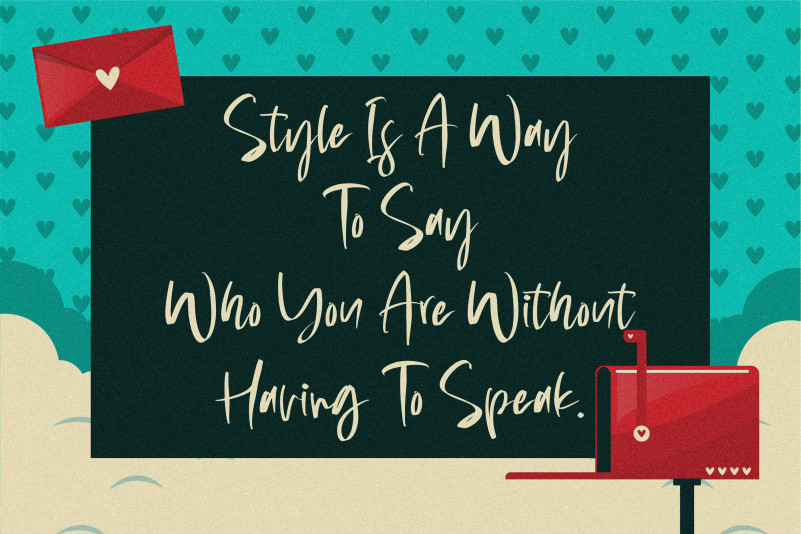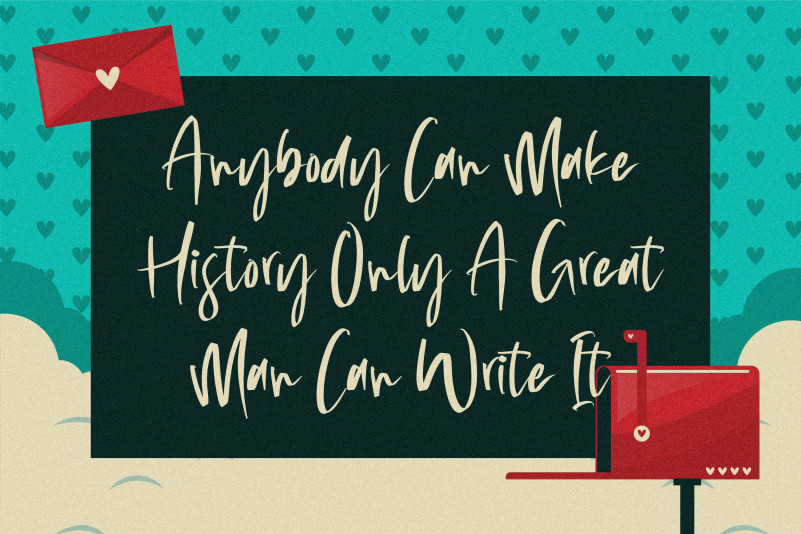
Handwritten Dreams Font
Handwritten Dreams Brush Font
This is a beautiful and flowing script font. Relaxed and friendly, this font was created for various designs that require a casual, informal touch. Add it confidently to your projects, and you will love the results.